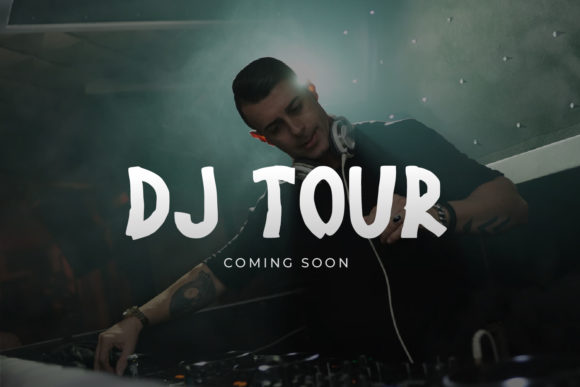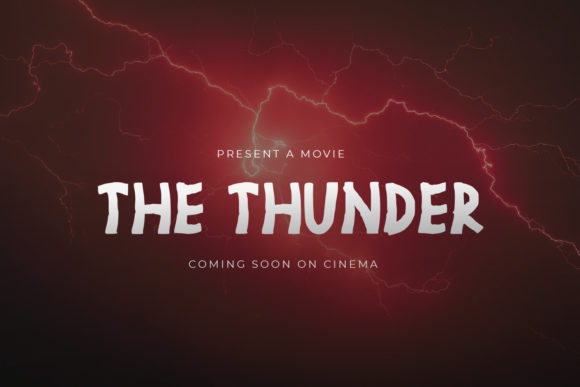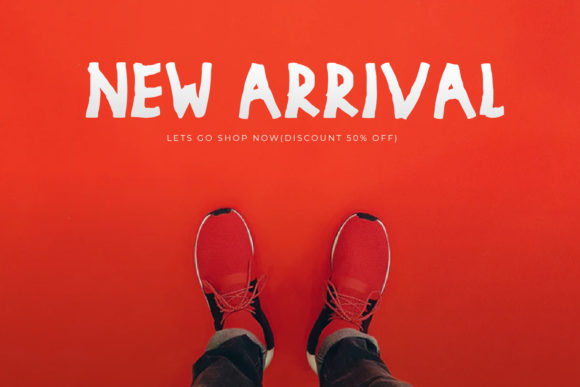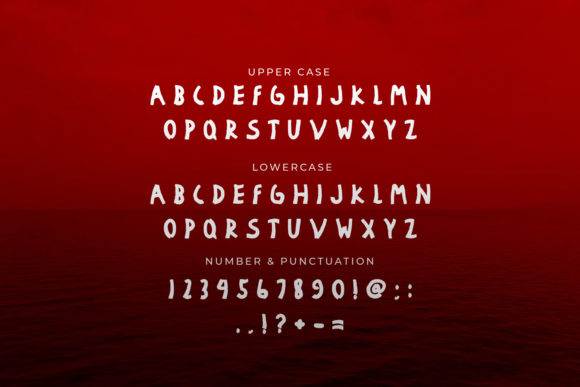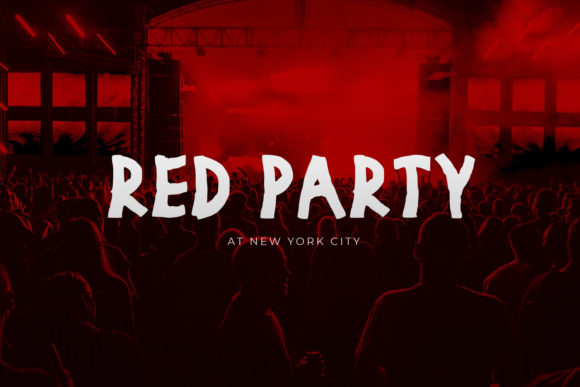
Introducing Heavily Damaged Font: The Ultimate Modern Display Font
Are you tired of using the same old fonts in your designs? Do you want to add a touch of modernity and edginess to your creations? Look no further than Heavily Damaged Font, a chunky lettered font that’s sure to make your designs come alive!
What is Heavily Damaged Font?
Heavily Damaged Font is a modern display font that’s perfect for designers and crafters who want to add a bold and eye-catching touch to their work. This font is designed to be highly legible, even at large sizes, making it ideal for use in headlines, titles, and other display text.
Key Features of Heavily Damaged Font
- Chunky Lettering: Heavily Damaged Font features chunky lettering that’s perfect for making a statement. Each letter is carefully crafted to be bold and eye-catching, making it perfect for use in titles, headlines, and other display text.
- Modern Design: This font features a modern design that’s perfect for designers and crafters who want to add a touch of edginess to their work. The font’s sleek lines and bold shapes make it perfect for use in a variety of design projects.
- Highly Legible: Despite its bold design, Heavily Damaged Font is highly legible, even at large sizes. This makes it perfect for use in headlines, titles, and other display text where clarity is key.
- Versatile: Heavily Damaged Font is a versatile font that can be used in a variety of design projects, from posters and flyers to logos and branding materials.
Why Use Heavily Damaged Font?
So why should you use Heavily Damaged Font in your designs? Here are just a few reasons:
- Adds Visual Interest: Heavily Damaged Font adds visual interest to your designs, making them more engaging and eye-catching.
- Perfect for Headlines and Titles: This font is perfect for use in headlines and titles, where its bold design and high legibility make it easy to read.
Tips and Tricks for Using Heavily Damaged Font
Here are a few tips and tricks for using Heavily Damaged Font:
- Use it Sparingly: Use Heavily Damaged Font sparingly to add emphasis to your designs. Overusing the font can make your designs look cluttered and overwhelming.
- Pair it with Other Fonts: Pair Heavily Damaged Font with other fonts to create visual interest and add depth to your designs.
- Experiment with Different Colors: Experiment with different colors to find the look that works best for your design.
Heavily Damaged Font is a modern display font that’s perfect for designers and crafters who want to add a touch of edginess to their work. With its chunky lettering, modern design, and high legibility, this font is perfect for use in headlines, titles, and other display text. Whether you’re creating posters, flyers, logos, or other design projects, Heavily Damaged Font is a versatile and cost-effective solution that’s sure to make your designs come alive!